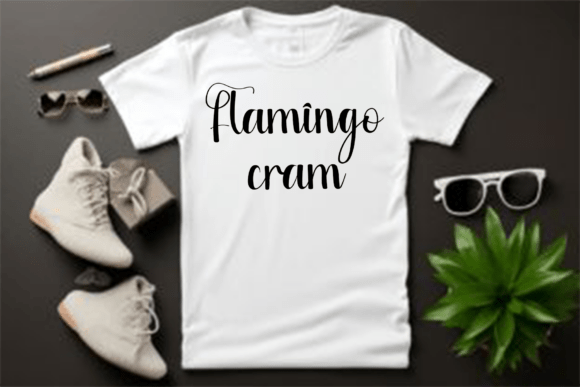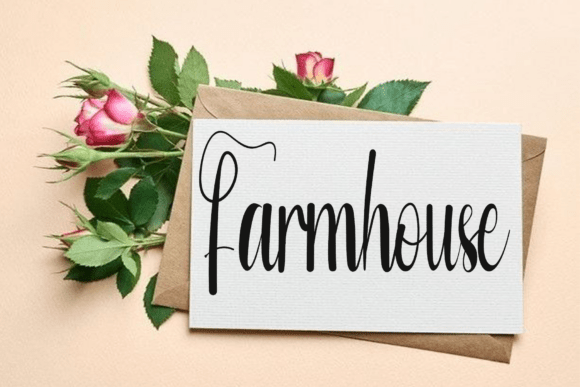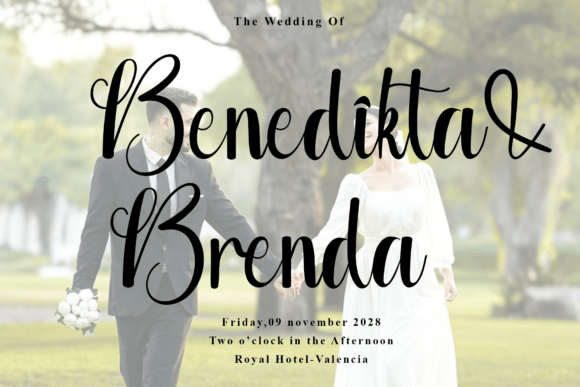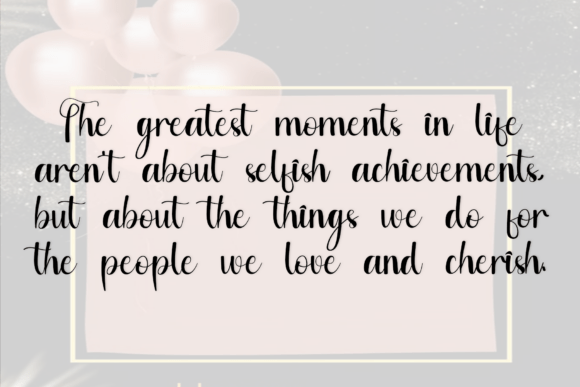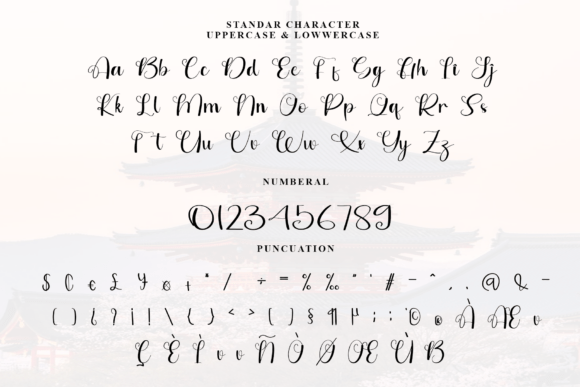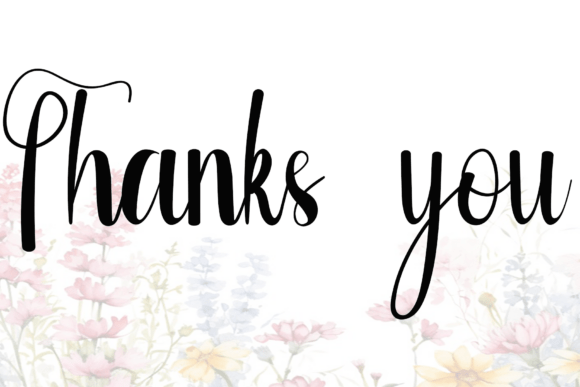
Introducing Birthday Card Font: The Perfect Handwritten Style for Your Designs
Are you looking for a font that can add a personal touch to your designs? Do you want to create a warm and inviting atmosphere that resonates with your audience? Look no further than the Birthday Card font, a beautiful casual handwritten font that radiates warmth and personality.
Handwritten fonts have always been a popular choice among designers, and for good reason. They offer a unique and personal touch that can make any design stand out. The Birthday Card font is no exception. With its smooth strokes, natural curves, and easy-flowing letterforms, it captures the charm of authentic handwriting with a modern, approachable feel.
Key Features of Birthday Card Font
- Smooth Strokes: The Birthday Card font features smooth strokes that give it a natural and effortless look.
- Natural Curves: The font’s natural curves add to its charm, making it perfect for designs that require a personal touch.
- Easy-Flowing Letterforms: The font’s letterforms are designed to flow easily, making it perfect for quotes, invitations, and social media posts.
- Modern and Approachable: The Birthday Card font has a modern and approachable feel that makes it perfect for a wide range of designs.
Uses of Birthday Card Font
The Birthday Card font is incredibly versatile and can be used for a variety of design projects. Here are some of the most popular uses:
- Quotes: The font’s smooth strokes and natural curves make it perfect for quotes that require a personal touch.
- Invitations: The font’s easy-flowing letterforms make it perfect for invitations, such as birthday parties, weddings, and baby showers.
- Branding: The Birthday Card font can be used for branding projects, such as logos, business cards, and letterheads.
- Social Media Posts: The font’s modern and approachable feel makes it perfect for social media posts, such as Instagram captions and Facebook updates.
Benefits of Using Birthday Card Font
The Birthday Card font offers a range of benefits that make it a popular choice among designers. Here are some of the most significant advantages:
- Readability: The font’s smooth strokes and natural curves make it easy to read, even at small sizes.
- Charm: The font’s charm and personality make it perfect for designs that require a personal touch.
- Versatility: The font’s versatility makes it perfect for a wide range of design projects.
- Effortless Style: The font’s effortless style makes it perfect for designers who want to create a natural and inviting atmosphere.
Tips for Using Birthday Card Font
Here are some tips for using the Birthday Card font in your designs:
- Use it for Headings: The font’s smooth strokes and natural curves make it perfect for headings and titles.
- Pair it with Other Fonts: The font can be paired with other fonts to create a unique and interesting design.
- Experiment with Colors: The font’s versatility makes it perfect for experimenting with different colors and color combinations.
- Use it for Digital and Print Designs: The font can be used for both digital and print designs, making it perfect for a wide range of projects.
The Birthday Card font is a beautiful casual handwritten font that radiates warmth and personality. With its smooth strokes, natural curves, and easy-flowing letterforms, it captures the charm of authentic handwriting with a modern, approachable feel. Whether you’re a designer or a crafter, this font is perfect for adding a personal touch to your designs. So why not give it a try and see how it can elevate your designs?